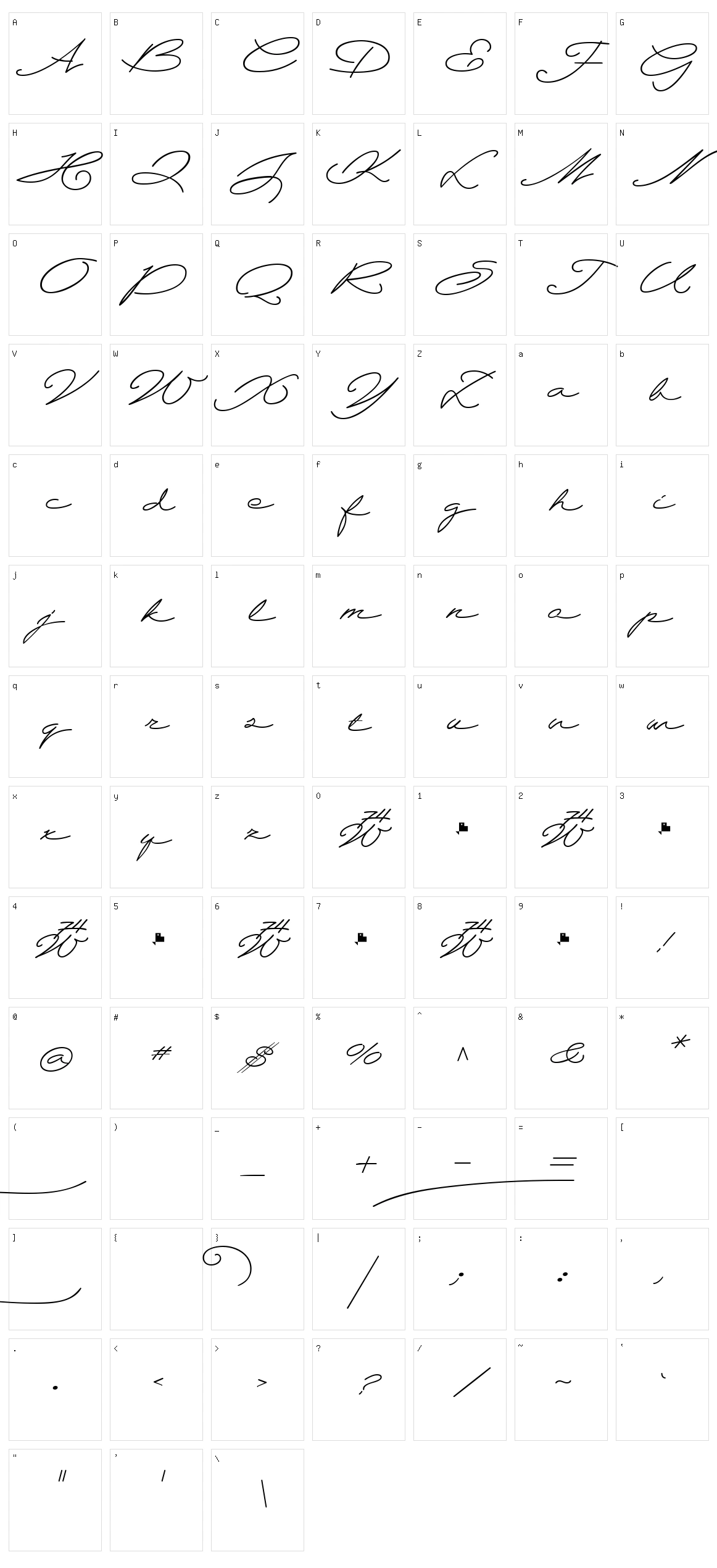
The free font Wolframia is carefully designed by deFharo, showcasing a thoughtful balance of creativity and usability and falls under the Script font style. When you download the ZIP file, it contains only 1273.62 KB of font files, making it lightweight and quick to download. Please review the license details below to understand permitted usage and distribution rights. If license information is not available, we recommend using this font for personal projects only or contacting the author directly for commercial usage permissions.